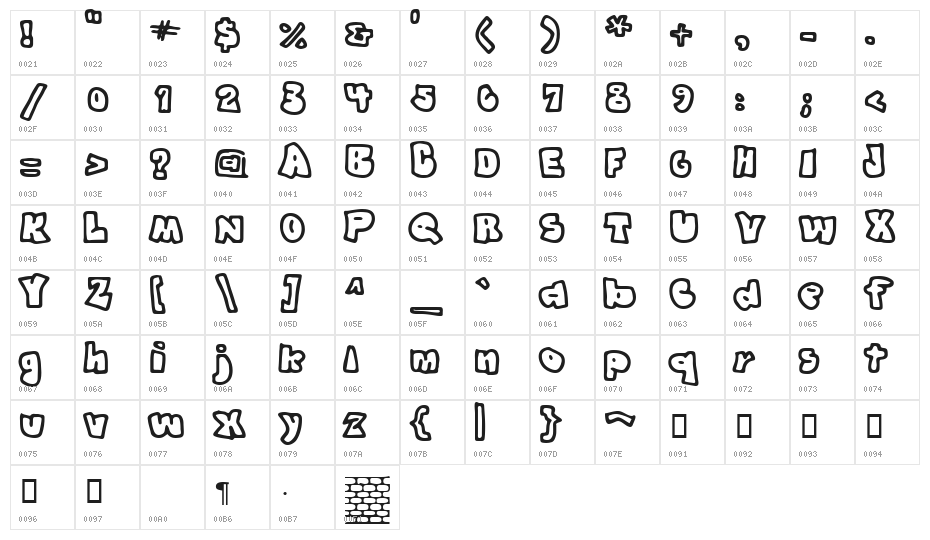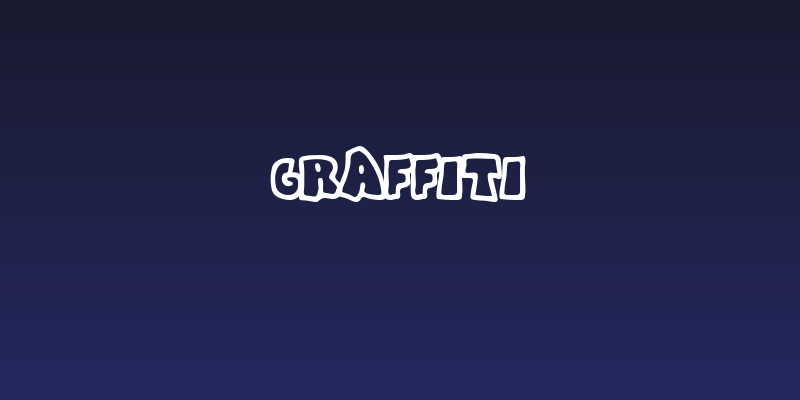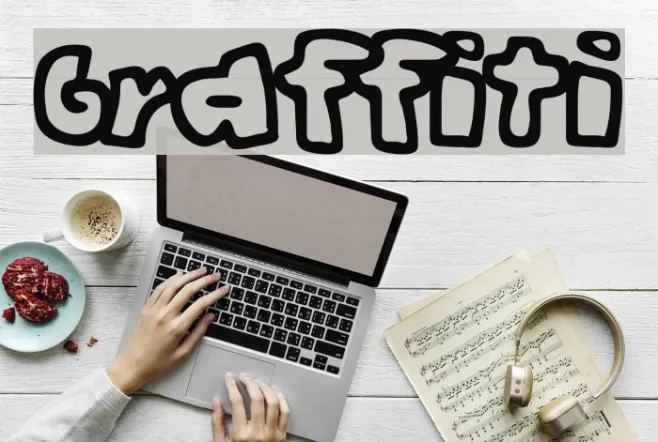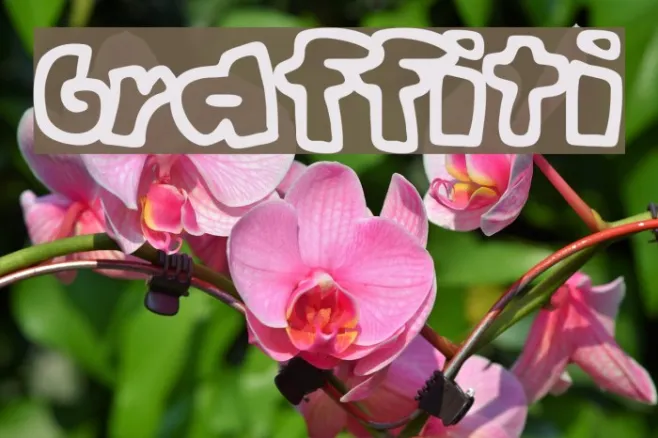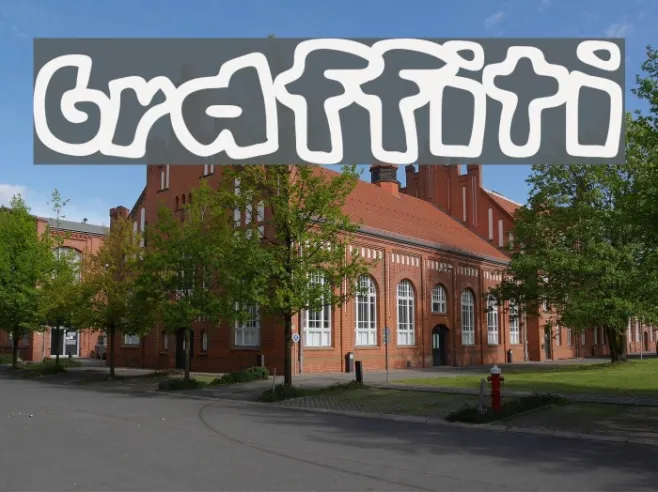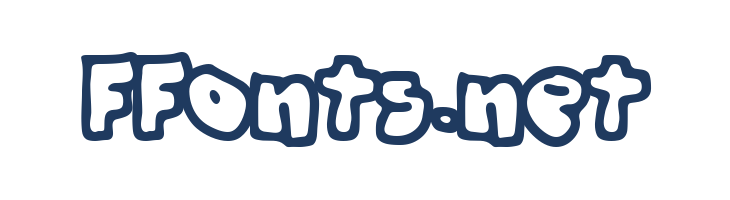
Graffiti Font
✎ Gothic
| Style général | Modern, Decorative |
| Projets proposés | Ideal for street art-inspired designs, posters, youth-oriented branding, and creative projects that require a bold, informal touch. |